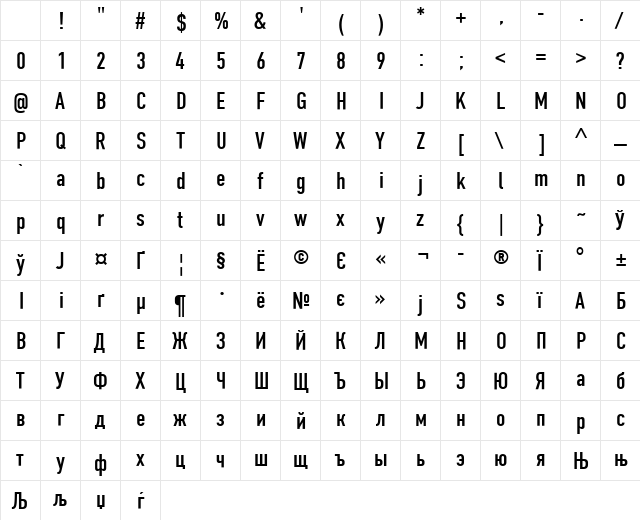
Complete DINCondensedC Regular glyph index. Displaying only characters natively supported by DINCondensedC Regular font.
DINCondensedC is a composed and adaptable typeface that performs quietly and consistently across a wide range of design contexts. Its narrow stance lets it pack a punch even in space-constrained designs.